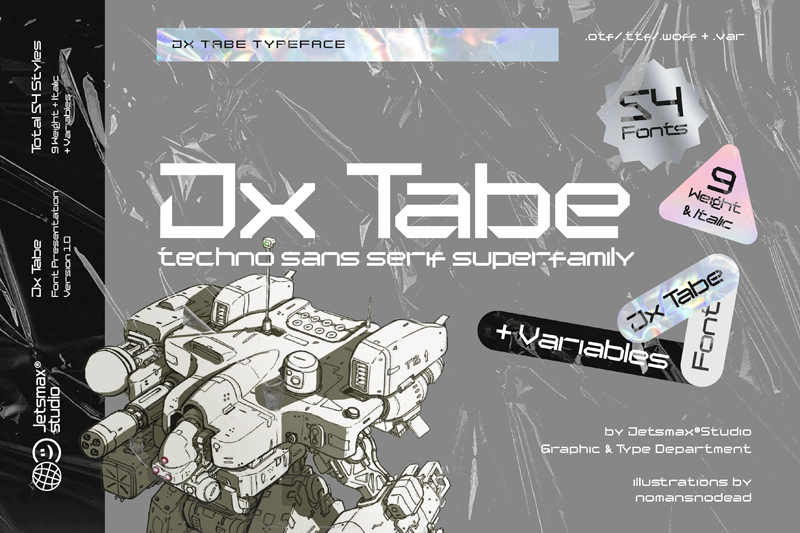
Preview and download Jx Tabe Font. Created by Jetsmax in Techno Square styles with Free for personal use license.
NOTES: THIS IS A DEMO VERSION, LIMITED CHARACTER WITH ONLY 2 STYLES (REGULAR AND THIN), TO GET THE FULL VERSION (54 STYLES AND FULL CHARACTER) VISIT https://jetsmax.com/jx-tabe/ Jx Tabe is New techno sans serif typeface with a superfamily. inspired by robotic, mecha, and aesthetic machine - a font suited for future technology. This multi-purpose typeface will grab the reader's attention with its stylish and neat design. With 9 Weight + Italic and 2 Width Condensed and Expanded, With a total of 54 styles, it's a timeless workhorse for many possible applications from branding to editorial. What�s Included : � Jx Tabe (.OTF/.TTF/.WOFF/.WOFF2 + VARIABLE) � Web Font (WOFF/WOFF2) � Variable Font (Available in .TTF) � Works on PC & Mac � Simple installations � Accessible in Adobe Illustrator, Adobe Photoshop, Adobe InDesign, even work on Microsoft Word. � PUA Encoded Characters � Fully accessible without additional design software. Fonts include multilingual support for; Afrikaans, Albanian, Catalan, Danish, Dutch, English, French, Hungarian, Icelandic, Italian, Spanish, Portuguese, German, Swedish, Norwegian, Polish, Indonesian, Turkish, Zulu, Belarusian, Bulgarian, Kazakh, Kyrgyz, Macedonian, Montenegrin, Russian, Serbian, Turkmen, Ukrainian, and Uzbek. Note: By installing or using this font, you are agree to the Product Usage Agreement: � This is demo version (TTF file) and ONLY for PERSONAL USE. NO COMMERCIAL USE ALLOWED! � Here is the link to purchase commercial license : https://jetsmax.com/jx-tabe/ � For Corporate use you have to purchase Corporate license More... |